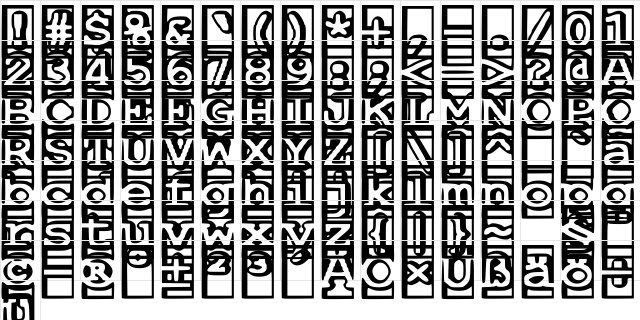
Design Context for One and a Half Feet Under Typeface
One and a Half Feet Under is a composed and adaptable typeface that performs quietly and consistently across a wide range of design contexts.